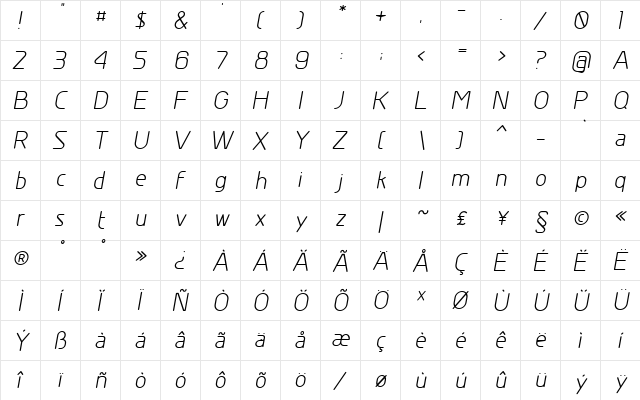
GreyscaleBasic Italic
Design Context for GreyscaleBasic Typeface
GreyscaleBasic is a composed and adaptable typeface that performs quietly and consistently across a wide range of design contexts. Its italic angle brings a sense of urgency and motion to the letterforms.
Pro Tip: Use GreyscaleBasic for emphasis, pull quotes, and subheadings where its slanted energy can add rhythm to the layout.